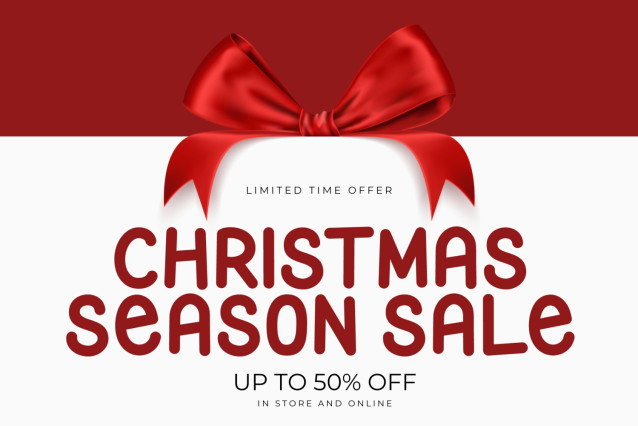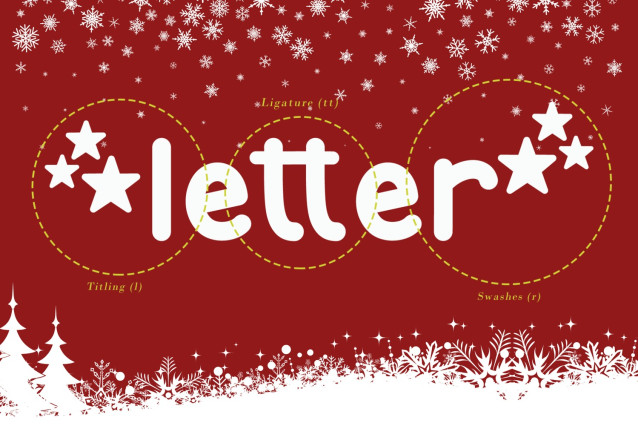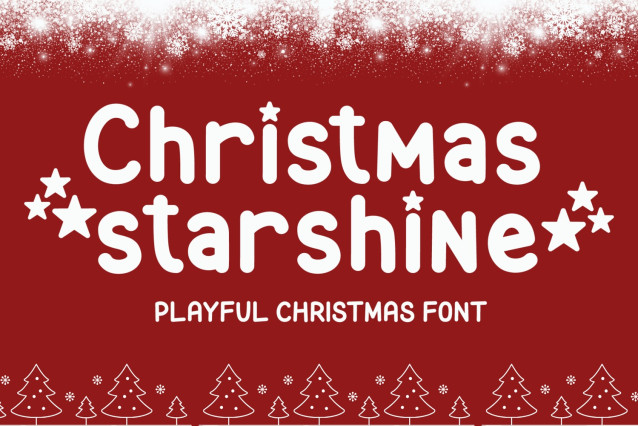
Christmas Starshine Font
Christmas Starshine Font is a playful and bold holiday font designed to fill your designs with festive cheer. Each letter bounces with personality, and the adorable star accents on the letters i and j add a magical twinkle that captures the true spirit of Christmas.
Perfect for crafters, designers, and anyone who loves the holiday season, this font instantly adds warmth and happiness to your work. Use it for Christmas cards, party invitations, ornaments, gift tags, apparel, or even branding for seasonal products.